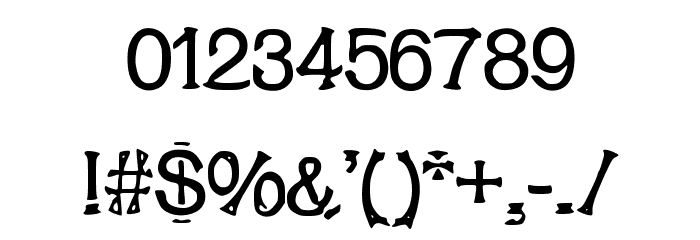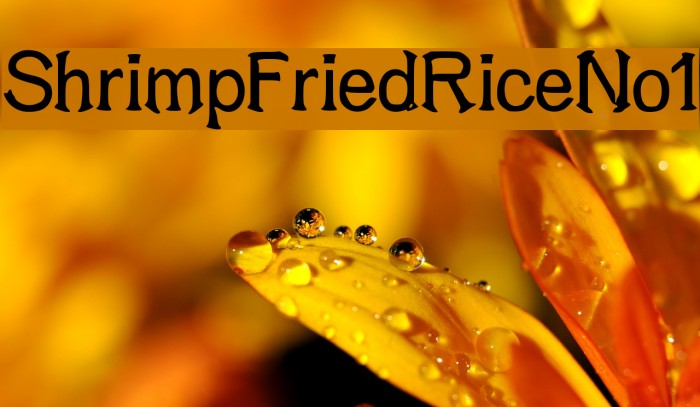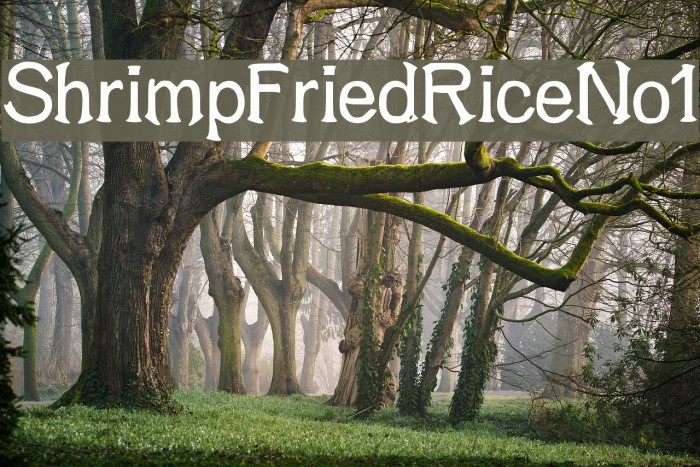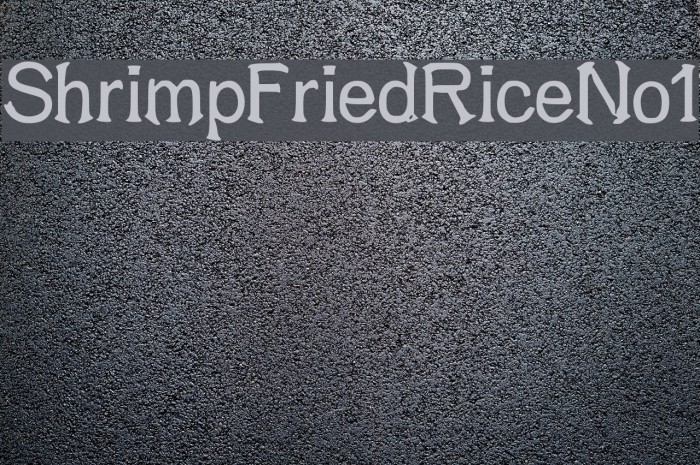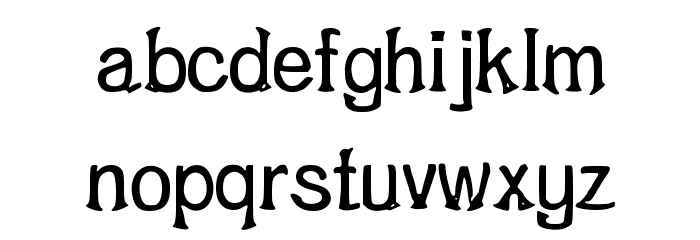
ShrimpFriedRiceNo1 Font
ShrimpFriedRiceNo1 Description
This font features a unique and artistic style with a decorative flair. The characters have a hand-drawn appearance, with irregular strokes and playful curves that give it a whimsical and creative feel. The uppercase letters are bold and prominent, while the lowercase letters maintain a consistent style with slightly exaggerated features. Numbers and special characters follow the same artistic theme, making the font suitable for projects that require a distinctive and eye-catching look. The overall design is both modern and vintage, blending traditional elements with contemporary aesthetics.
A whimsical, decorative font with a hand-drawn, artistic style from Uncategorized fonts.
- Proposed Projects: Ideal for creative projects such as posters, invitations, branding, and packaging that require a unique and artistic touch.